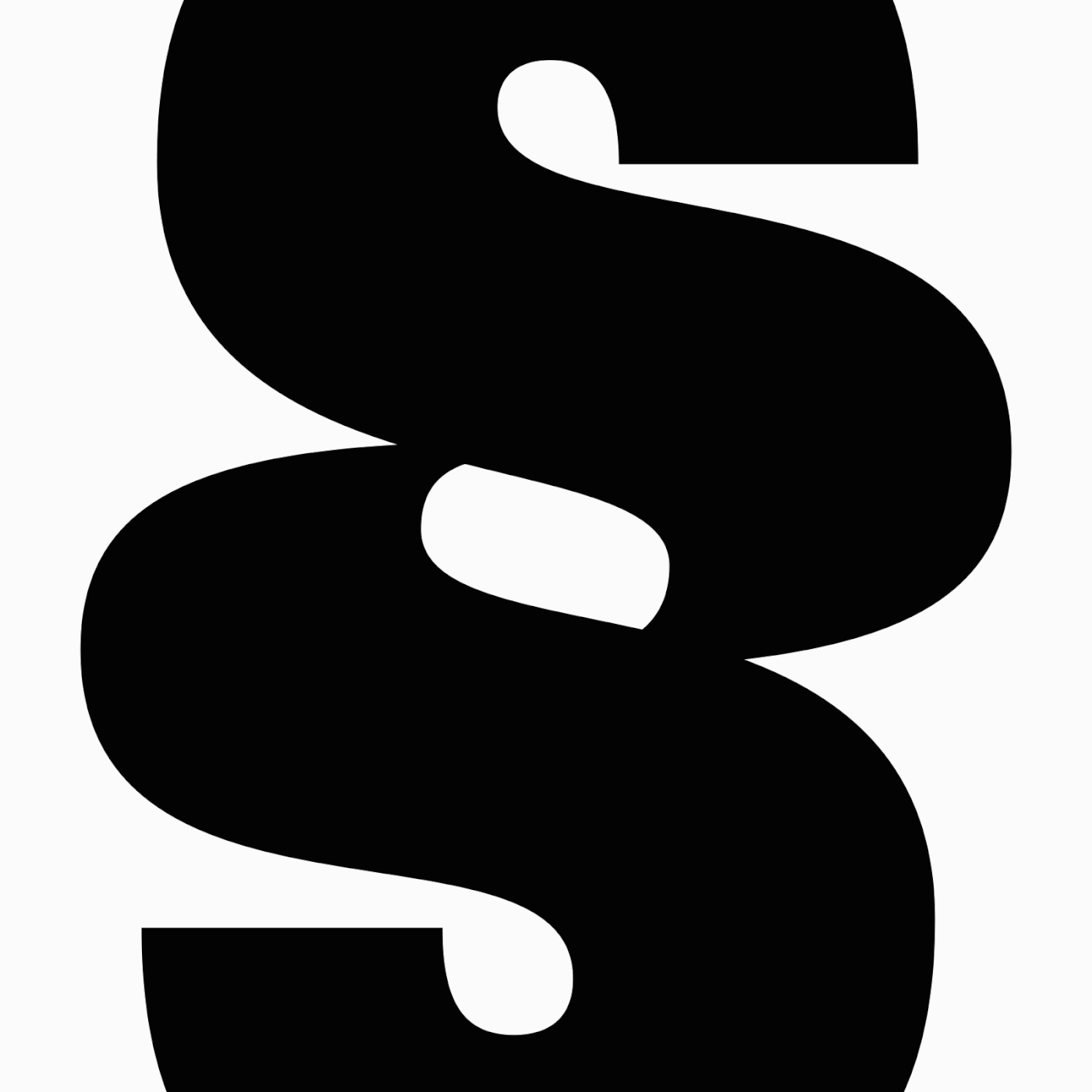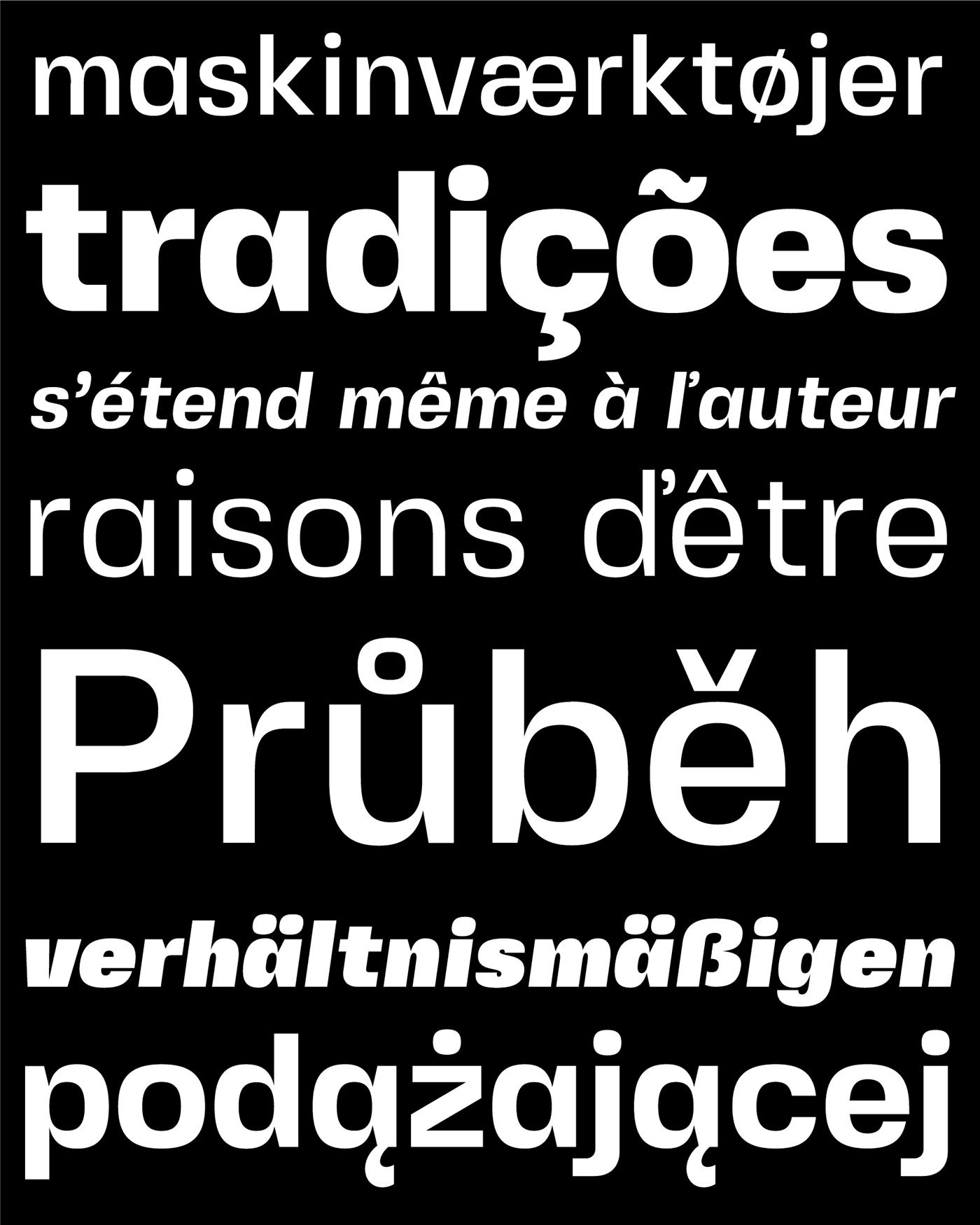
Fivo Sans Modern is an eye-catching display version of Fivo Sans. With its extremely huge ink traps Fivo Sans Modern is good for headlines, posters, logotypes, covers and other cases when you need big heavy letters and nowadays feel. The family includes 5 weights from Regular to Extra Black, Plain and Oblique, 358 characters per weight.
191 languages are supported:
Abenaki, Afaan Oromo, Afar, Albanian, Alsatian, Amis, Anuta, Aragonese, Aranese, Aromanian, Arrernte, Arvanitic (Latin), Asturian, Aymara, Bashkir (Latin), Basque, Belarusian (Latin), Bikol, Bislama, Bosnian, Breton, Cape Verdean Creole, Cebuano, Chamorro, Chavacano, Chickasaw, Cimbrian, Cofán, Corsican, Creek, Crimean Tatar (Latin), Croatian, Czech, Danish, Dawan, Delaware, Dholuo, Drehu, Dutch, English, Estonian, Fijian, Filipino, Finnish, Folkspraak, French, Frisian, Friulian, Gagauz (Latin), Galician, Genoese, German, Gooniyandi, Guadeloupean Creole, Gwich’in, Haitian Creole, Hän, Hawaiian, Hiligaynon, Hopi, Hotcąk (Latin), Hungarian, Ido, Ilocano, Indonesian, Interglossa, Interlingua, Irish, Istro-Romanian, Italian, Jamaican, Javanese (Latin), Jèrriais, Kala Lagaw Ya, Kapampangan (Latin), Kaqchikel, Karakalpak (Latin), Karelian (Latin), Kashubian, Kikongo, Kinyarwanda, Kiribati, Kirundi, Ladin, Latin, Latino sine Flexione, Latvian, Lithuanian, Lojban, Lombard, Low Saxon, Luxembourgish, Makhuwa, Malay, Manx, Māori, Marquesan, Megleno-Romanian, Meriam Mir, Mirandese, Mohawk, Moldovan, Montagnais, Montenegrin, Murrinh-Patha, Nagamese Creole, Ndebele, Neapolitan, Ngiyambaa, Niuean, Noongar, Norwegian, Novial, Occidental, Occitan, Oshiwambo, Ossetian (Latin), Palauan, Papiamento, Piedmontese, Polish, Portuguese, Potawatomi, Q’eqchi’, Quechua, Rarotongan, Romanian, Romansh, Rotokas, Sami (Lule Sami), Sami (Southern Sami), Samoan, Sango, Saramaccan, Sardinian, Scottish Gaelic, Serbian (Latin), Seri, Seychellois Creole, Shawnee, Shona, Sicilian, Silesian, Slovak, Slovenian, Slovio (Latin), Somali, Sorbian (Lower Sorbian), Sorbian (Upper Sorbian), Sotho (Northern), Sotho (Southern), Spanish, Sranan, Sundanese (Latin), Swahili, Swazi, Swedish, Tagalog, Tahitian, Tetum, Tok Pisin, Tokelauan, Tongan, Tshiluba, Tsonga, Tswana, Tumbuka, Turkish, Turkmen (Latin), Tuvaluan, Tzotzil, Uzbek (Latin), Venetian, Vepsian, Volapük, Võro, Wallisian, Walloon, Waray-Waray, Warlpiri, Wayuu, Welsh, Wiradjuri, Wik-Mungkan, Xavante, Xhosa, Yapese, Yindjibarndi, Zapotec, Zulu, Zuni.